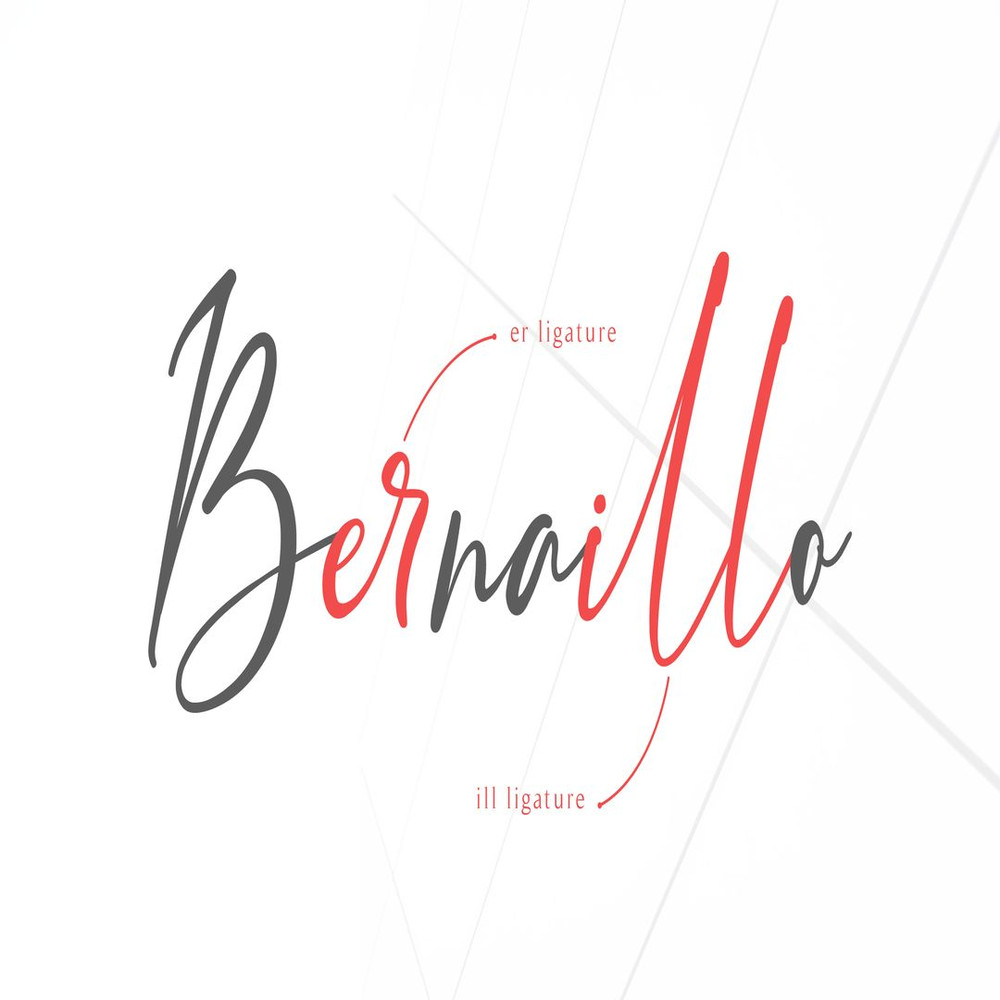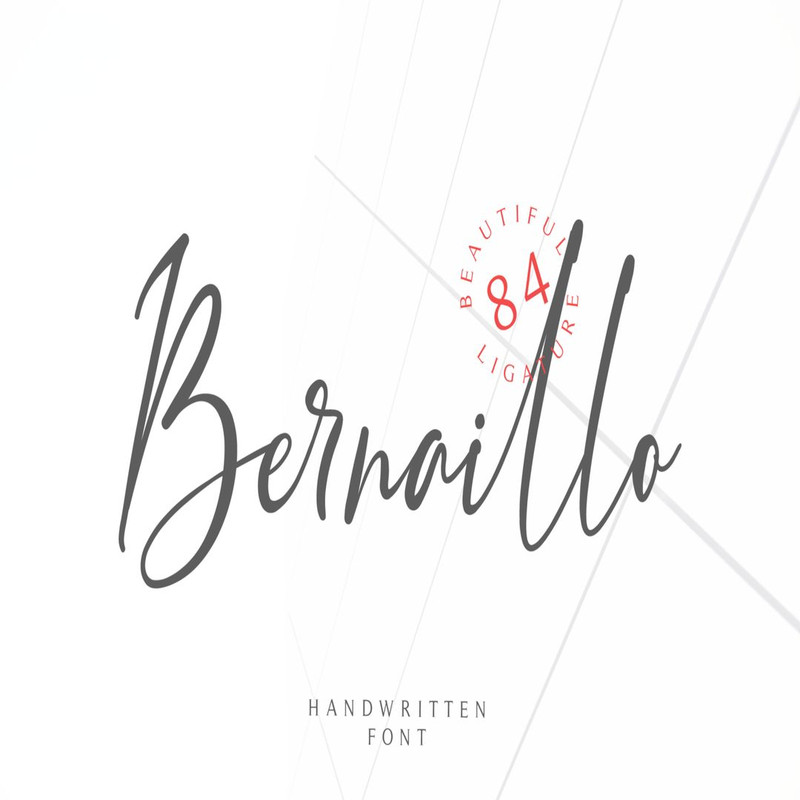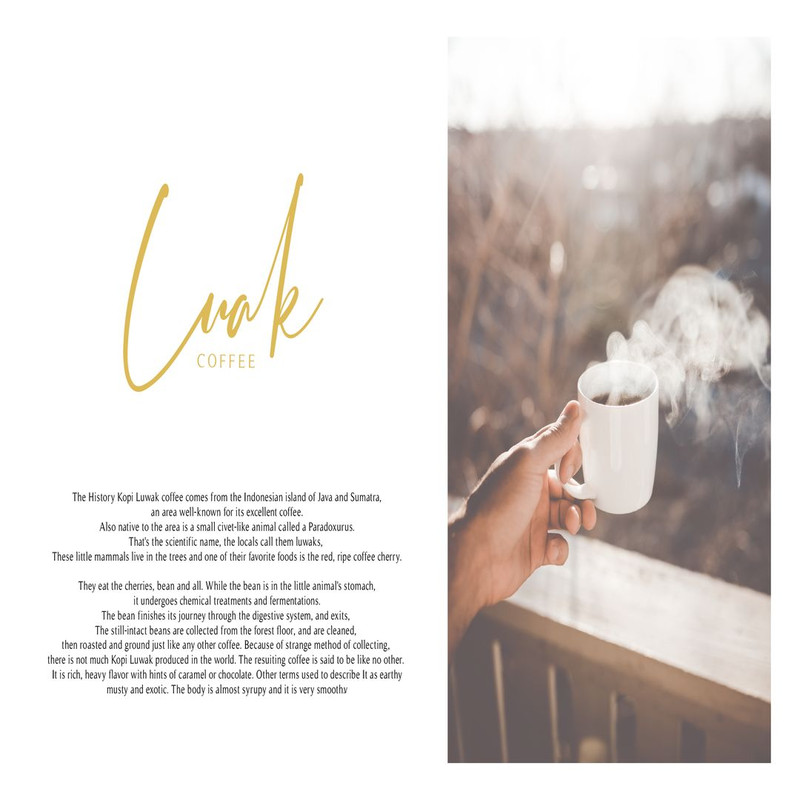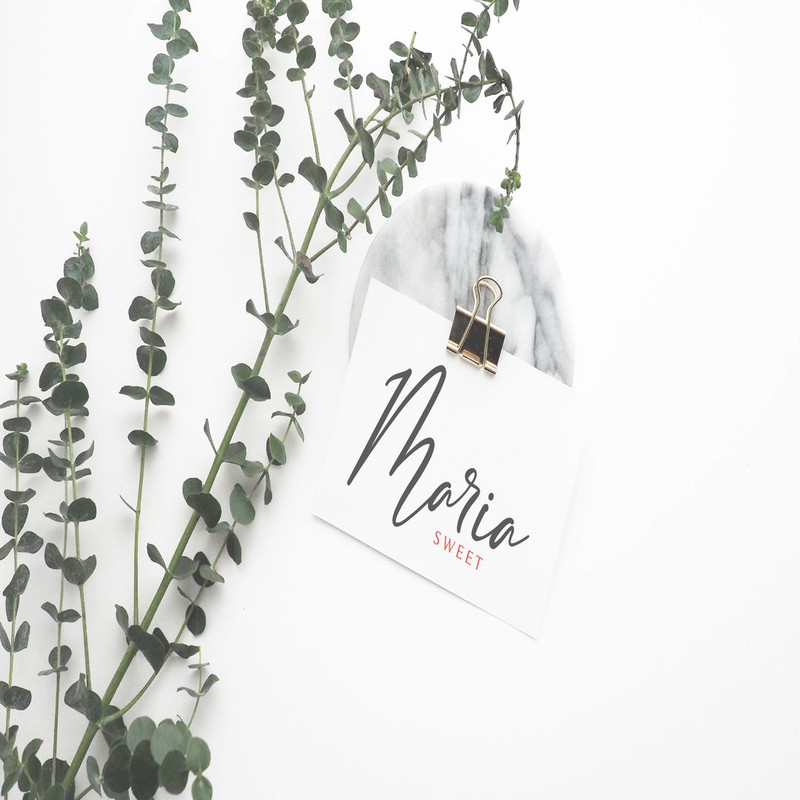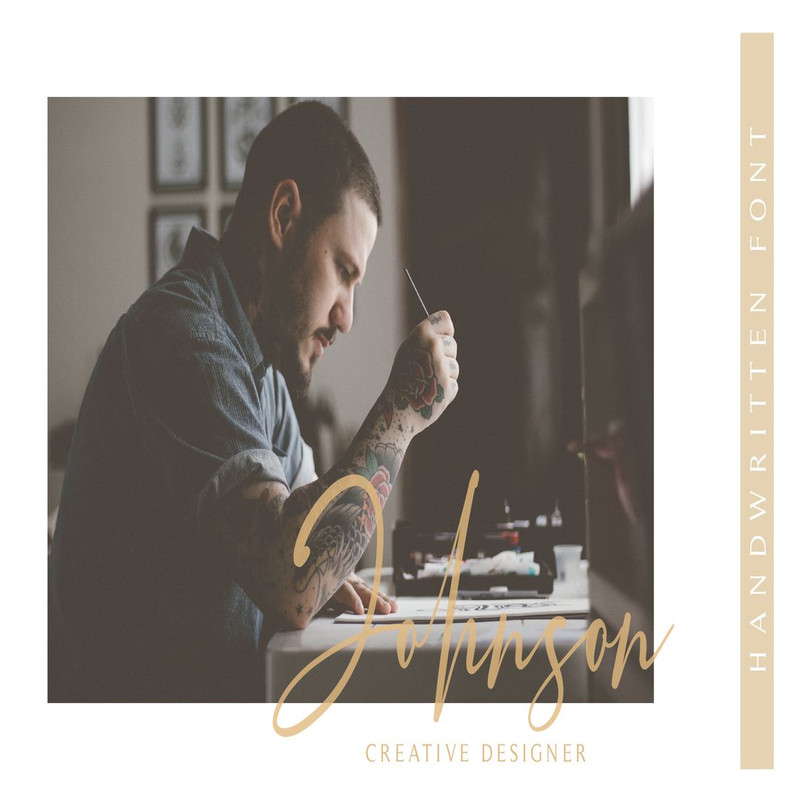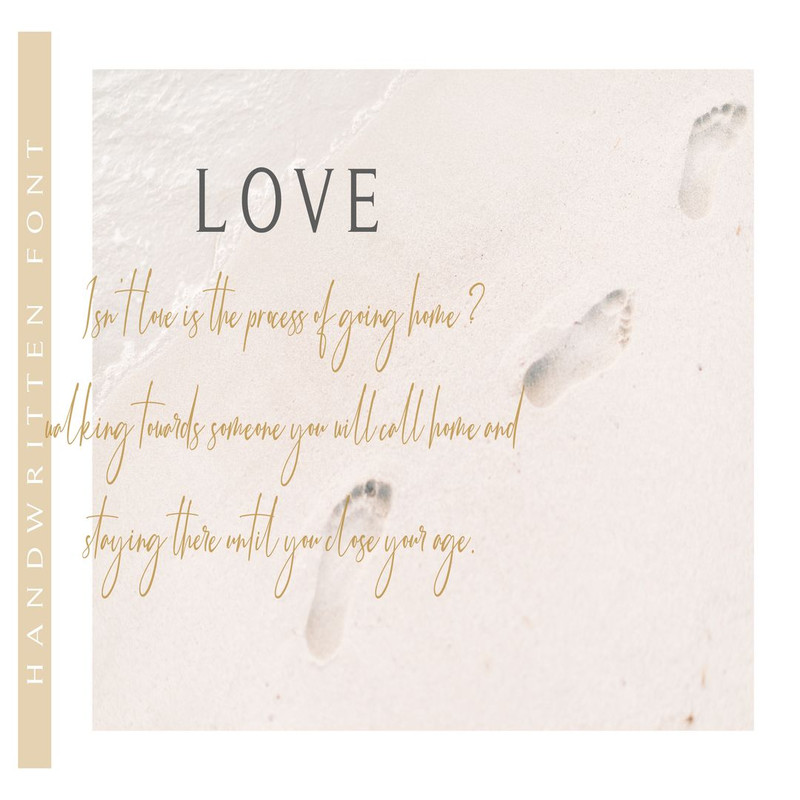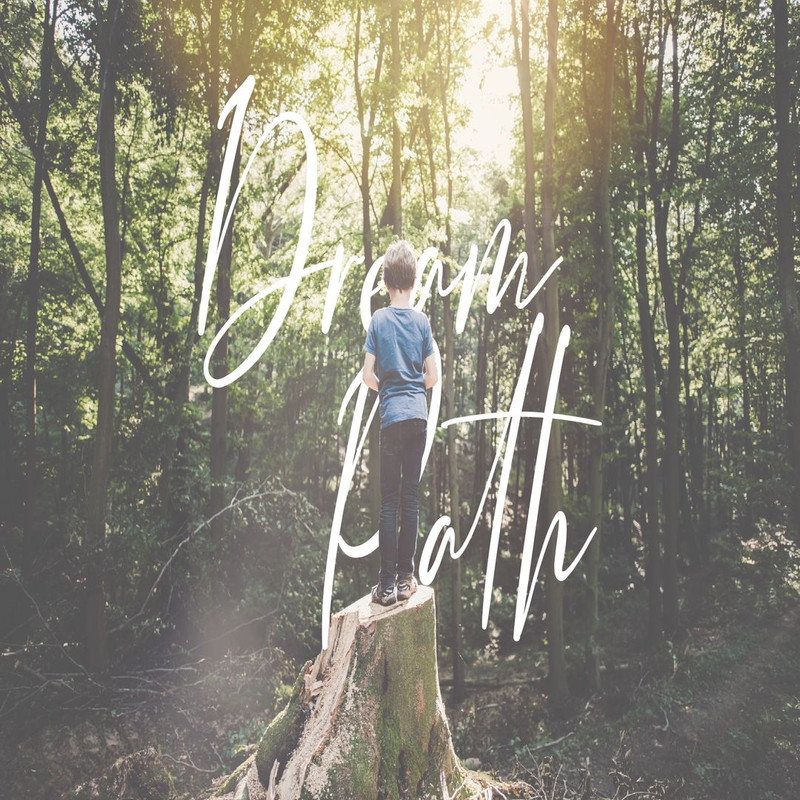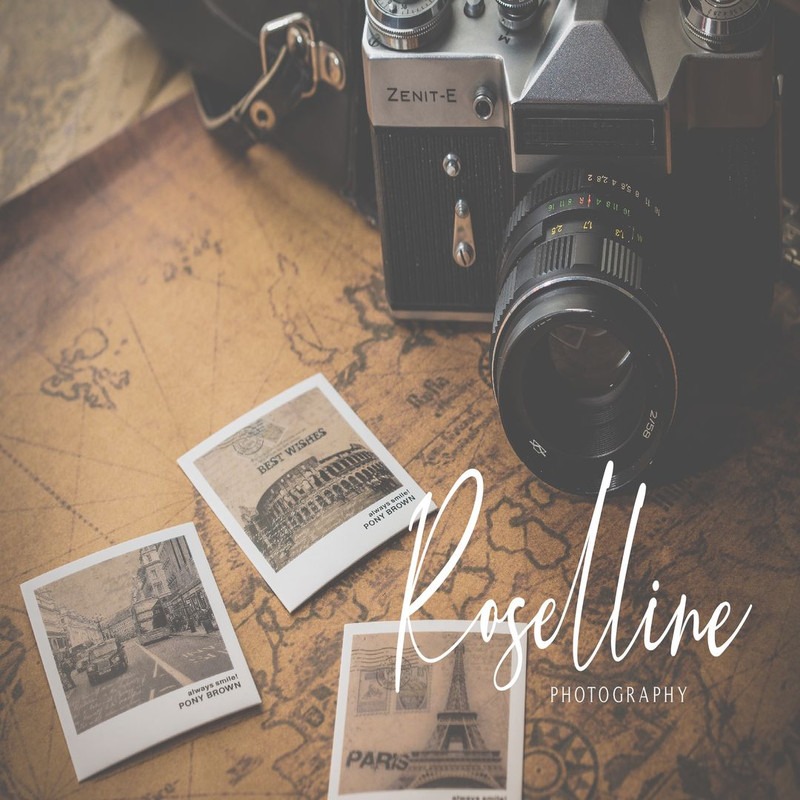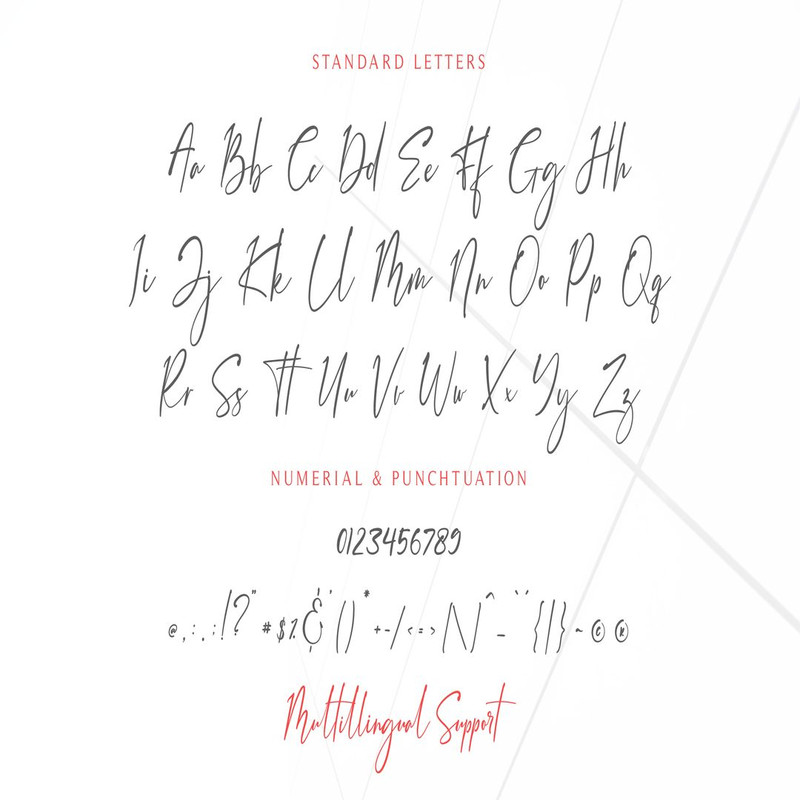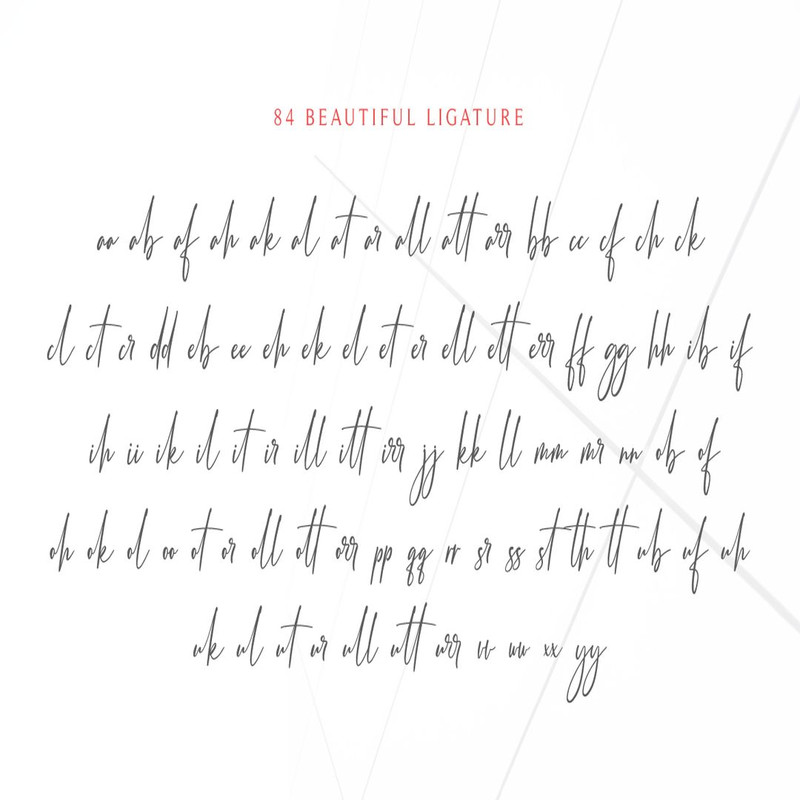
Bernaillo font very suitable for use in a variety of uses such as watermarks, signature and signature logos, business cards, brand names, and many more.
Feature :
– All Caps
– Numerial and Punctuation
– 84 Beautiful Ligature
– Multilingual accent: